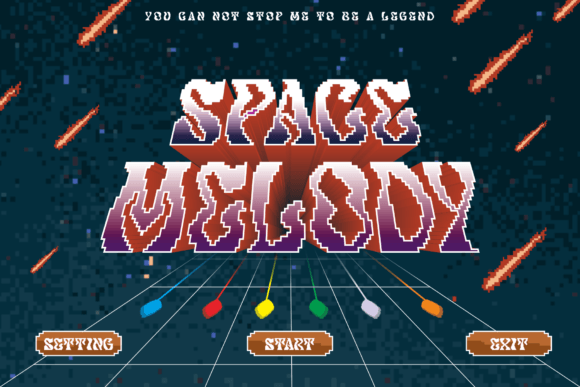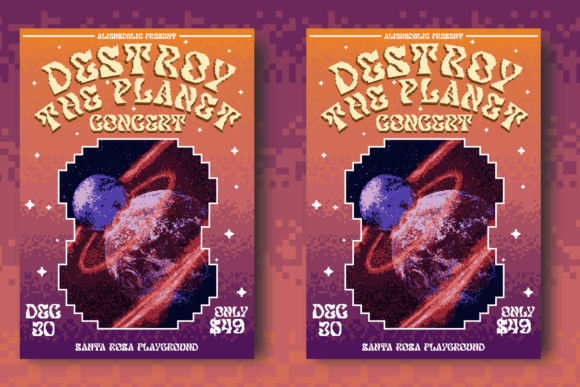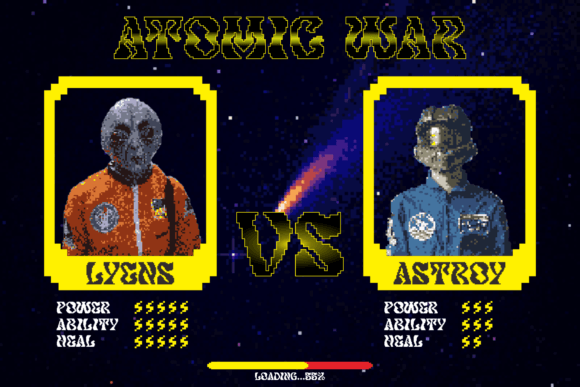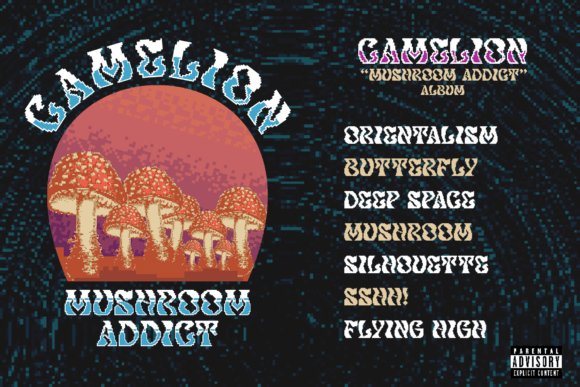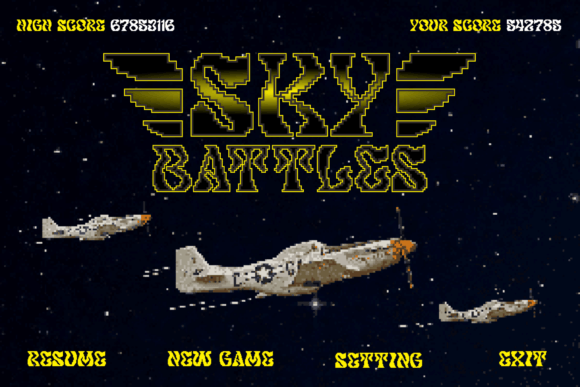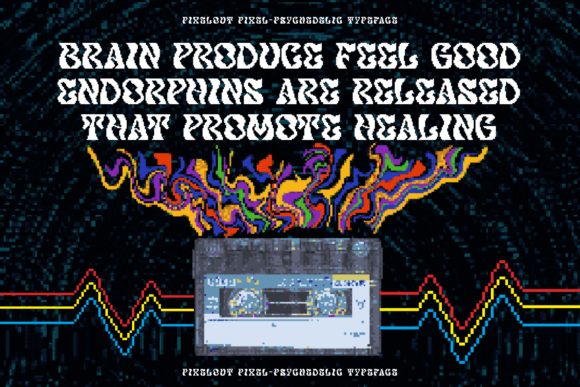
Introduction to Pixelout Font
PIXELOUT is a display font based on bold serifs combined with a psychedelic style and given a low pixel effect like in a game.
With its pixelated stroke characteristics, this font is perfect for different or unique designs such as in games or for bands and music event posters The uniqueness of this font is psychedelic-pixel, it can be categorized as a vintage font because usually, old-school games use this style plus it can be used for bands because psychedelic is also found in one genre of music.